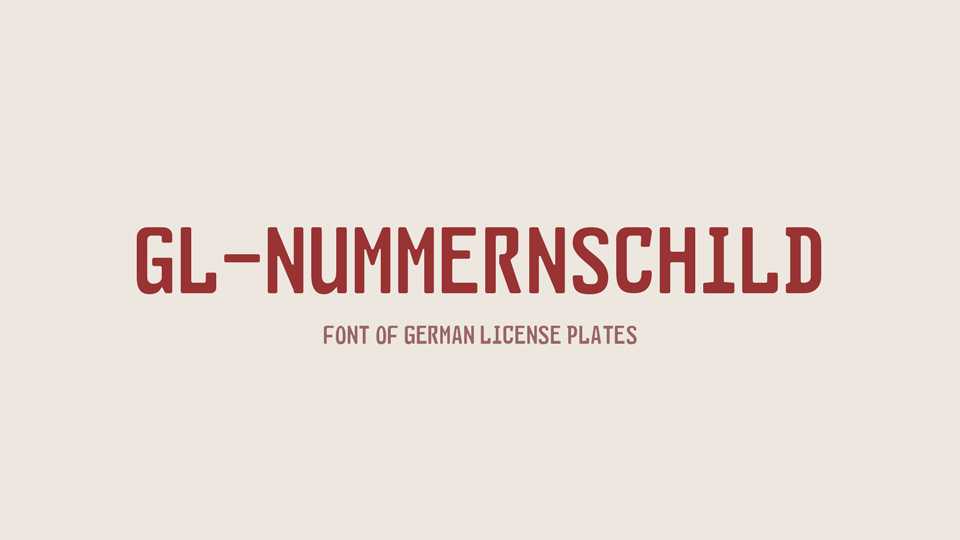
Download GL-Nummernschild font, a typeface meticulously designed to capture the essence of German license plates. This font embodies the precision and clarity associated with German design, reflecting the iconic style found on vehicles.
Designer: Gutenberg Labo